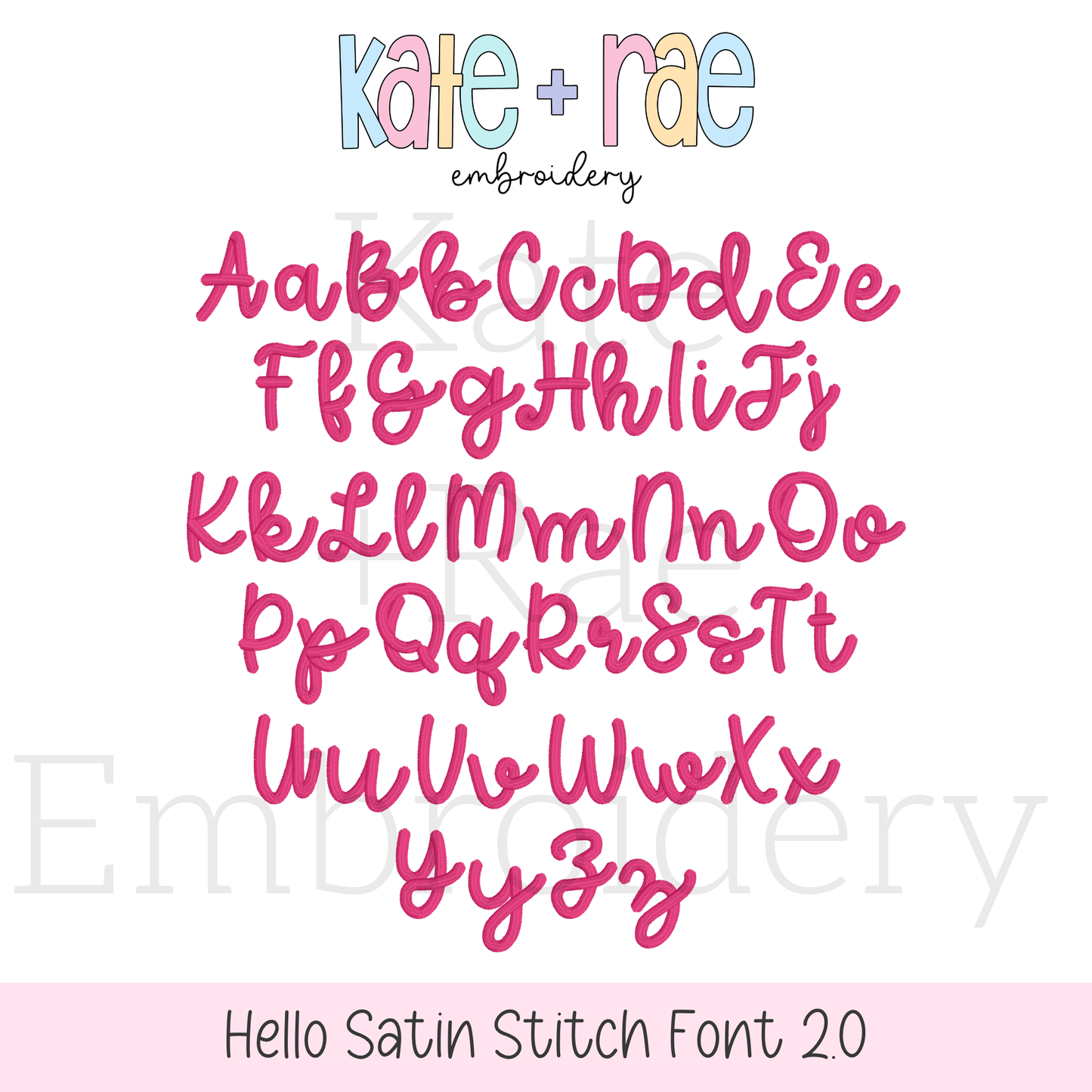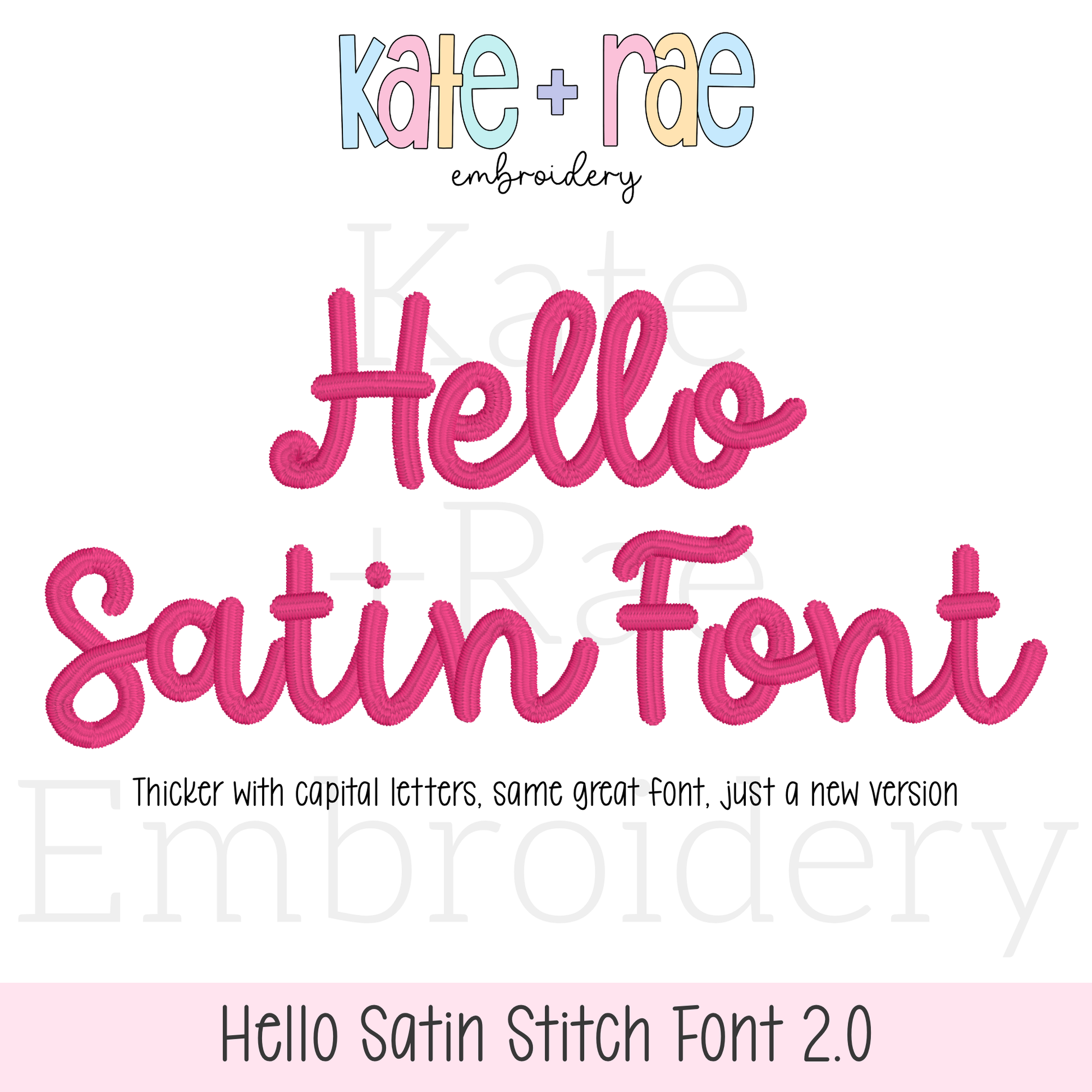
Hello Satin Stitch Embroidery Font 2.0: The names Laken and Logan in green satin script on pink striped backpacks
Hello Satin Stitch Embroidery Font 2.0
Meet Hello 2.0, our handwritten satin stitch script font with a thicker satin and capital letters! Personalize names, monograms, sweatshirts, and kids' outfits.